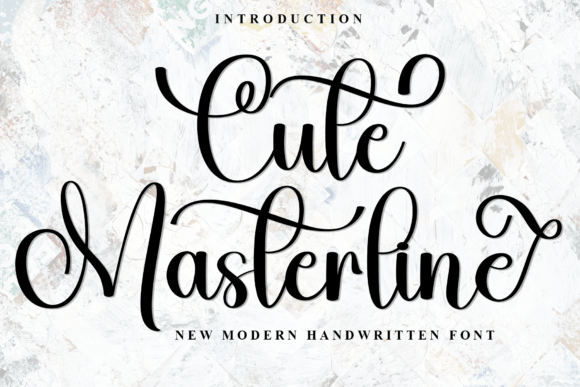
Cute Masterline Font: The Perfect Choice for Creative Designs
The Cute Masterline font is a casual and creative typeface that exudes warmth and friendliness. Its round, playful strokes create a relaxed and approachable feel, making it perfect for personal projects, invitations, and social media graphics. In this article, we’ll explore the features and benefits of the Cute Masterline font and how it can add a fun and unique touch to your designs.
Key Features of Cute Masterline Font
- Casual and Creative: The Cute Masterline font has a playful and artistic vibe, making it ideal for creative projects.
- Warm and Friendly: The font’s round strokes and charming aesthetic create a warm and friendly feel.
- Hand-Drawn Aesthetic: The font’s hand-drawn look adds a unique and personal touch to any design.
Perfect Uses for Cute Masterline Font
The Cute Masterline font is versatile and can be used for various design projects, including:
- Personal Projects: Use the font for personal projects, such as scrapbooking, journaling, or crafting.
- Invitations: The font is perfect for creating invitations for parties, weddings, or other special events.
- Social Media Graphics: Use the font to create engaging social media graphics, such as quotes, posters, or flyers.
- Branding: The font can be used for branding projects, such as logos, business cards, or letterheads.
Benefits of Using Cute Masterline Font
The Cute Masterline font offers several benefits, including:
- Unique Aesthetic: The font’s hand-drawn aesthetic adds a unique and personal touch to any design.
- Easy to Read: The font is easy to read, making it perfect for body text or captions.
- Versatile: The font can be used for various design projects, from personal to commercial.
Tips and Tricks for Using Cute Masterline Font
Here are some tips and tricks for using the Cute Masterline font:
- Experiment with Colors: The font looks great with bright and pastel colors, so experiment with different color combinations.
- Mix and Match: Mix and match the font with other fonts to create a unique and interesting design.
- Use for Headings: Use the font for headings or titles to add a playful and creative touch.
- Keep it Simple: Keep your design simple and clean to let the font shine.
The Cute Masterline font is a versatile and creative typeface that can add a fun and unique touch to any design. Its casual and friendly aesthetic makes it perfect for personal projects, invitations, and social media graphics. With its PUA Encoded glyphs and compatibility with various application engines, the font is easy to use and compatible with most design software.